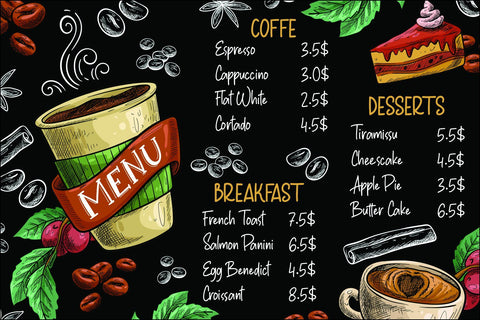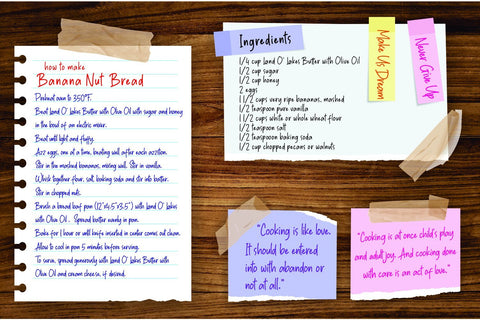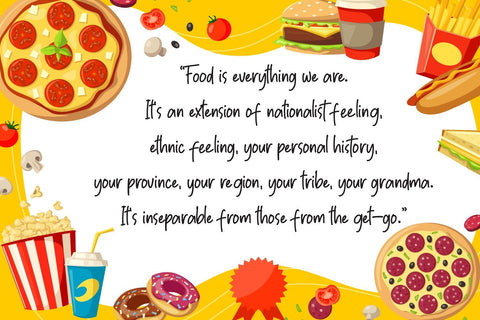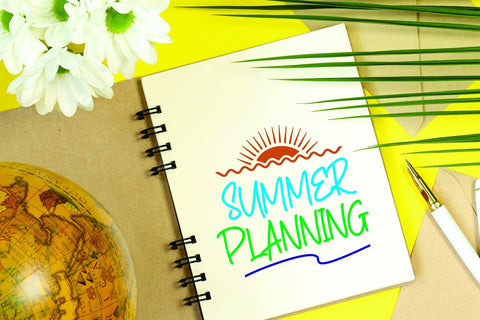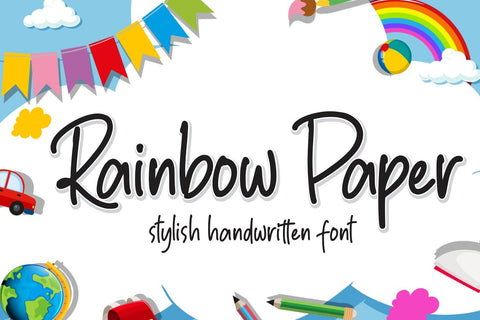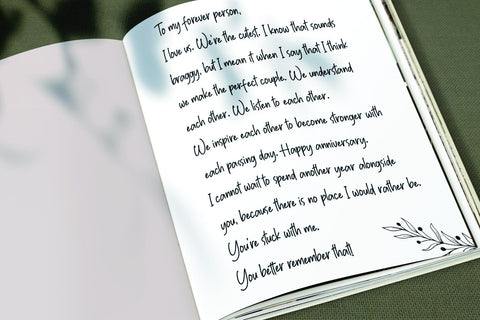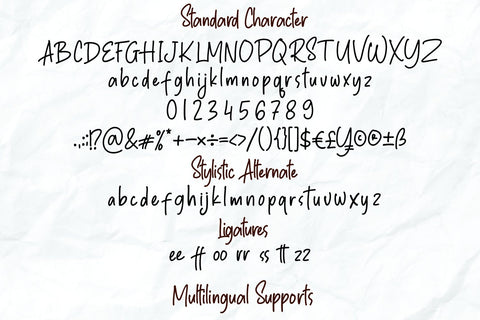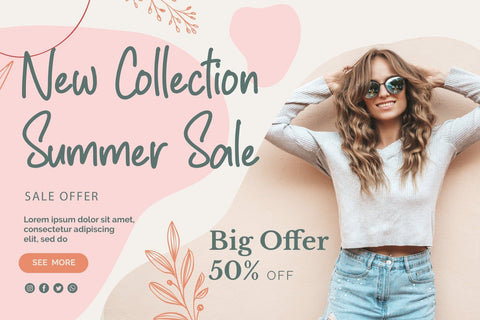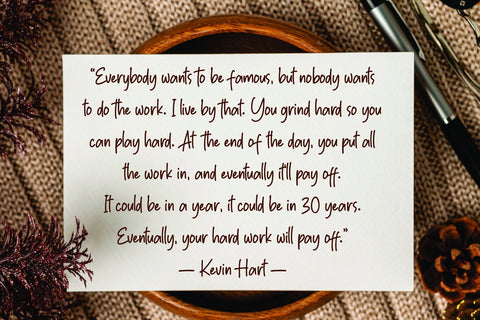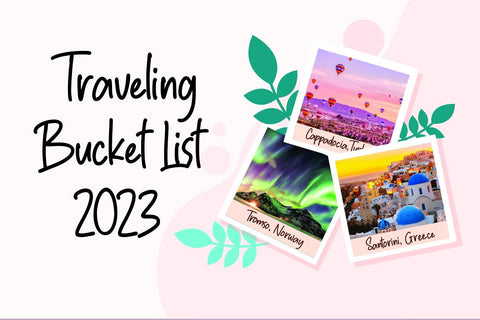
Rainbow Paper
Rainbow Paper is a stylish, cute, friendly and original display font.
It is made from a marker pen.
Its casual charm makes it look very down to earth, easy to read and, in the end, very versatile.
It is PUA encoded which means you can access all of the glyphs and swashes with ease!